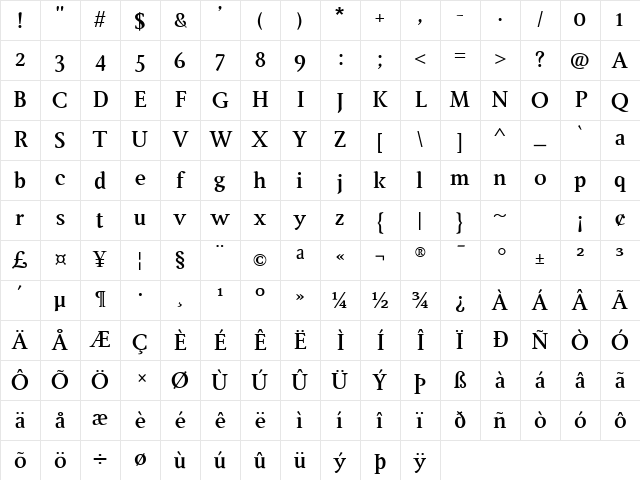
Complete Ingleby Bold glyph index. Displaying only characters natively supported by Ingleby Bold font.
Ingleby is a composed and adaptable typeface that performs quietly and consistently across a wide range of design contexts. Its bold stroke weight gives it real presence on the page.